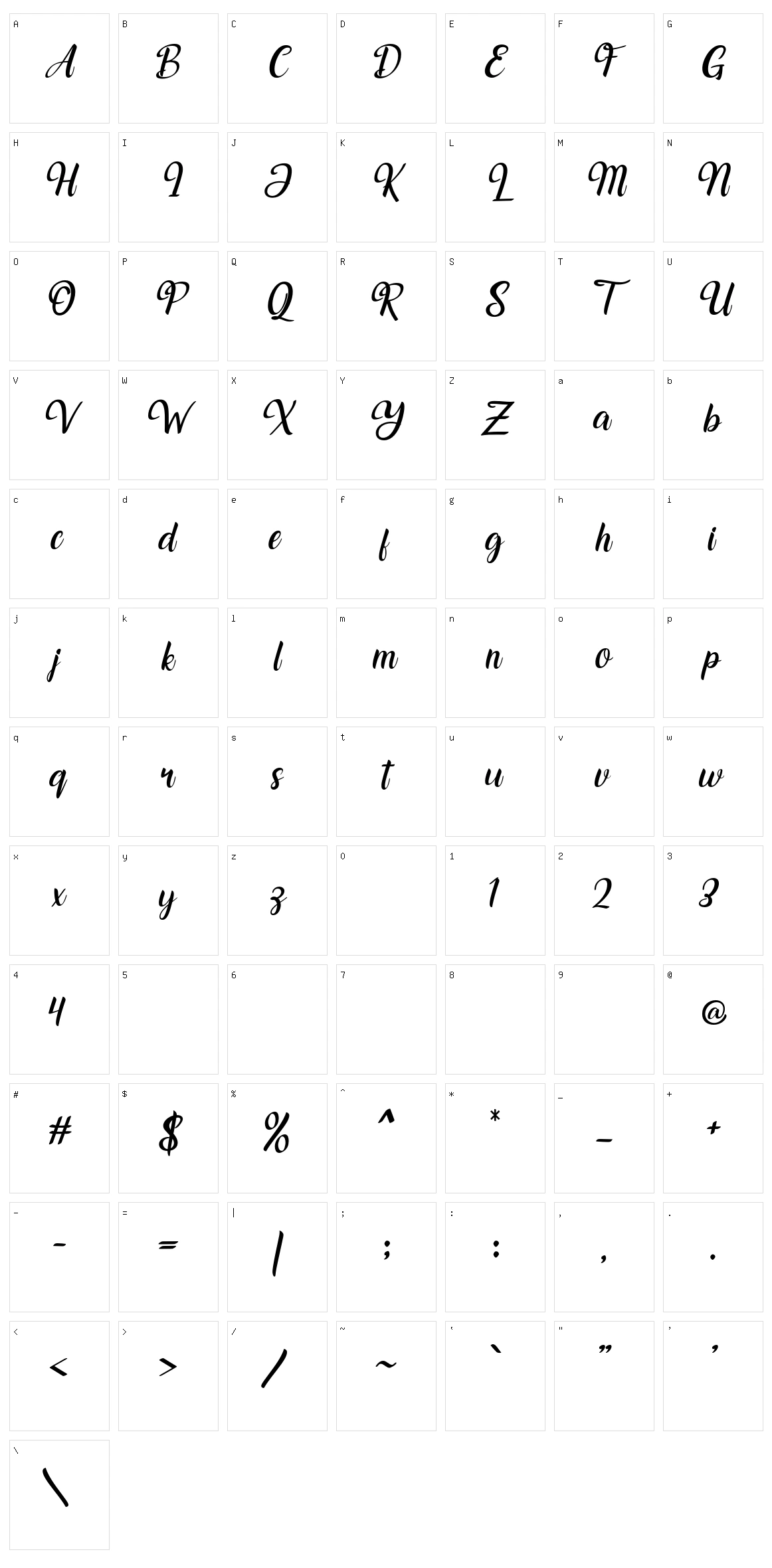
The free font Higher Star is carefully designed by Nico Muslib, showcasing a thoughtful balance of creativity and usability and falls under the Script font style. When you download the ZIP file, it contains only 49.96 KB of font files, making it lightweight and quick to download. Please review the license details below to understand permitted usage and distribution rights. If license information is not available, we recommend using this font for personal projects only or contacting the author directly for commercial usage permissions.